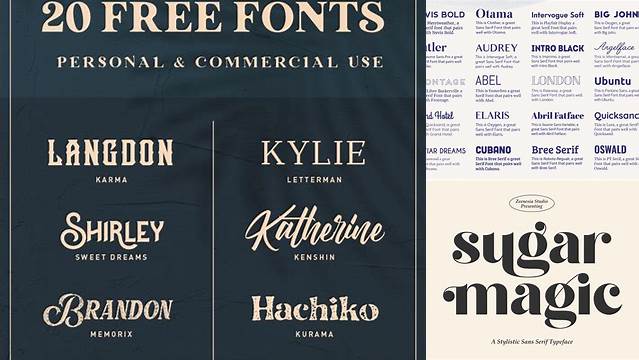
Free Font Designs: Your Guide To Awesome Typography
Hey guys! Are you on the hunt for some amazing free font designs to spice up your projects? Whether you're a seasoned designer or just starting out, finding the perfect font can make all the difference. In this guide, we're diving deep into the world of free fonts, covering everything from where to find them to how to use them effectively. Let’s get started!
- DaFont: DaFont is another super popular resource for free fonts. It has a huge collection, with fonts organized into categories like fancy, cartoon, gothic, and more. While most fonts on DaFont are free for personal use, you’ll need to check the individual font’s license for commercial use. The site is easy to navigate, but remember to always double-check the licensing terms before using a font in a commercial project.
- Font Squirrel: Font Squirrel is a fantastic resource for finding fonts that are 100% free for commercial use. They carefully curate their selection, ensuring that all fonts are high-quality and properly licensed. The site also offers a handy “Font Identifier” tool that can help you identify fonts from images, which is super useful if you’ve seen a font you love but don’t know its name.
- MyFonts: While MyFonts is primarily a marketplace for premium fonts, they also have a section dedicated to free fonts. You’ll find a mix of both free for personal use and free for commercial use fonts here. The site has a sophisticated search and filtering system, making it easy to find exactly what you’re looking for.
Alright guys, let's get into the nitty-gritty details of typography! Kerning, tracking, and leading are the three key adjustments you can make to fine-tune the appearance of your text. Mastering these details can take your free font designs from looking good to absolutely stunning. These adjustments control the spacing between letters and lines of text, affecting readability and visual appeal.
- Kerning: Kerning refers to the space between individual letters. It's about making sure that each pair of letters looks balanced and harmonious. Some letter combinations, like